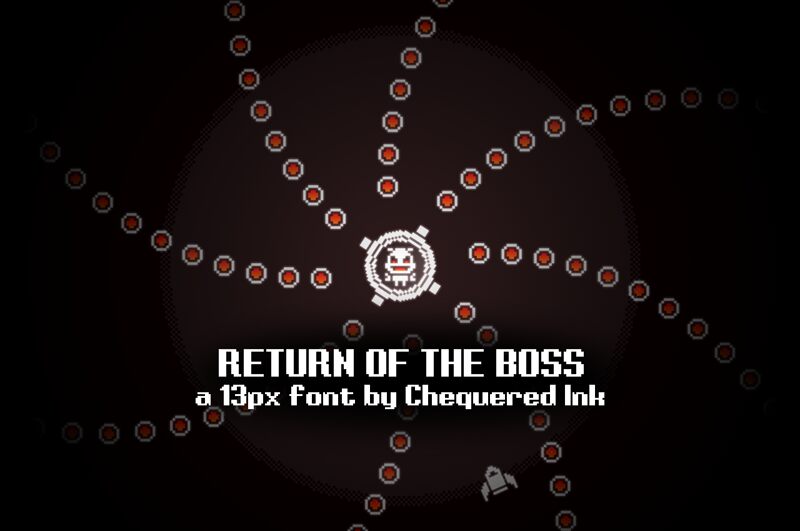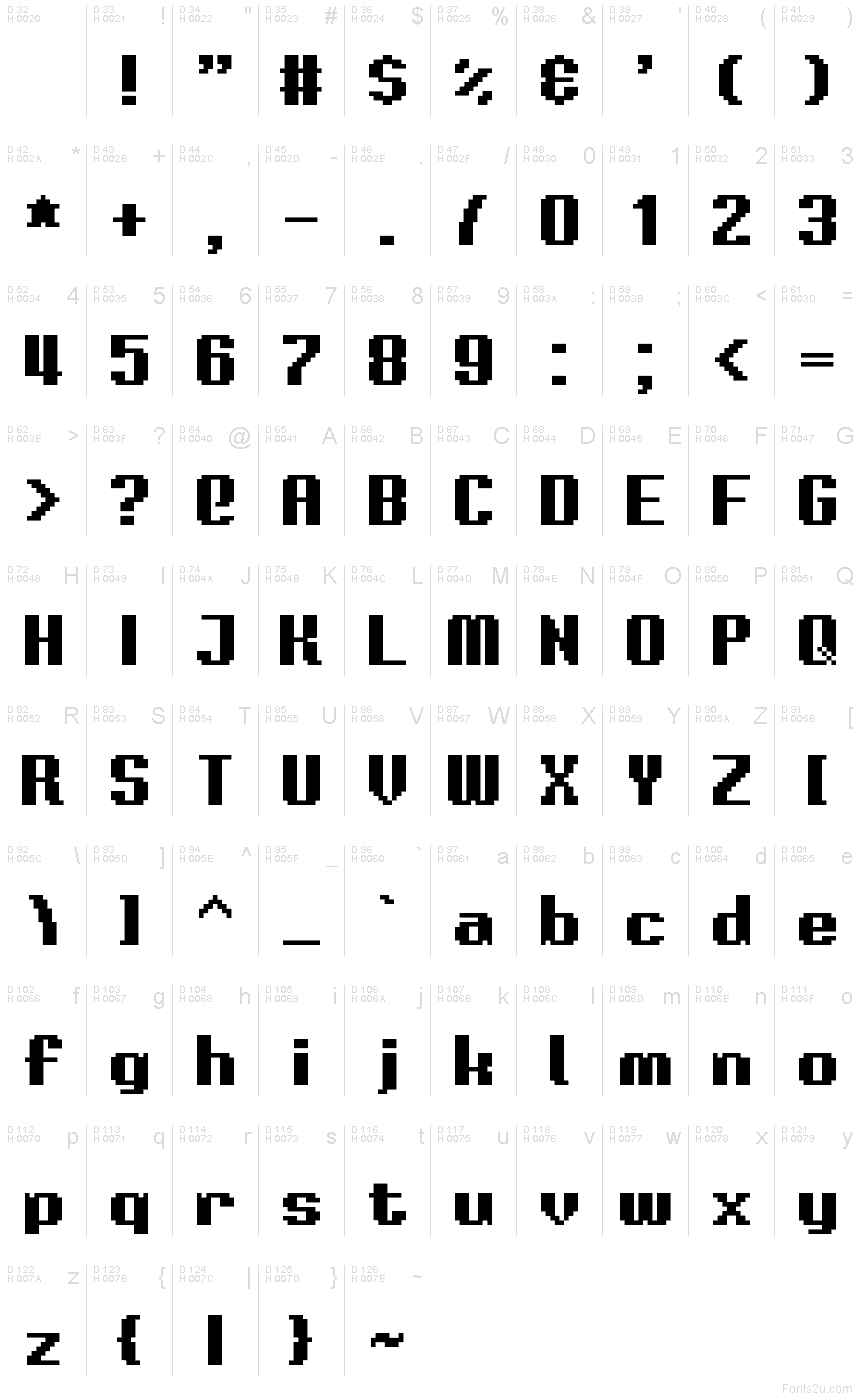
Return of the Boss Regular
Return of the Boss font by Chequered Ink is a free pixel bitmap typeface. Its narrow, brick-like letters snap to the grid with crunchy corners and a steady, marching rhythm—like an end-level title flashing on an old CRT. The spacing is tight, the forms are bold, and the result feels instant: press start, you’re in. It brings arcade confidence without the clutter.
Using Return of the Boss, headlines and badges punch through: retro game titles, HUD elements, stream overlays, event posters, stickers, app icons, and YouTube thumbnails. Keep it at whole-pixel sizes for razor-sharp edges, and pair this free font with a simple sans like Inter for body copy to keep the spotlight on the pixels.